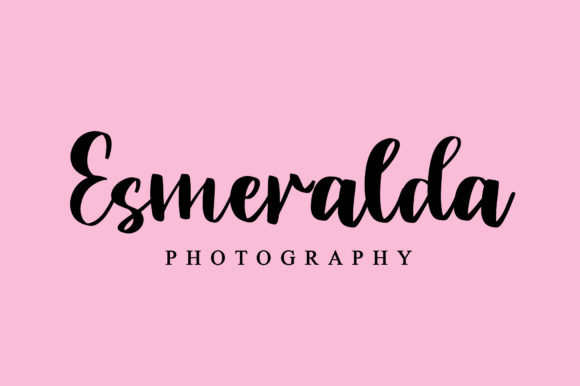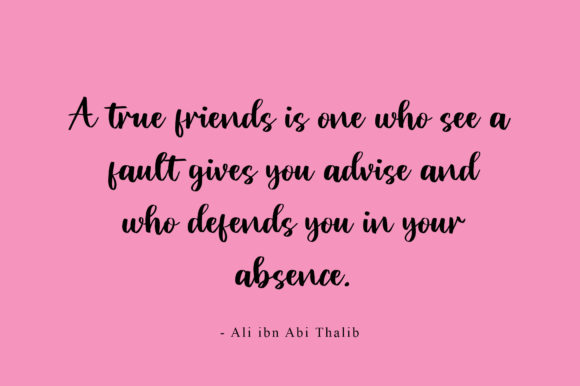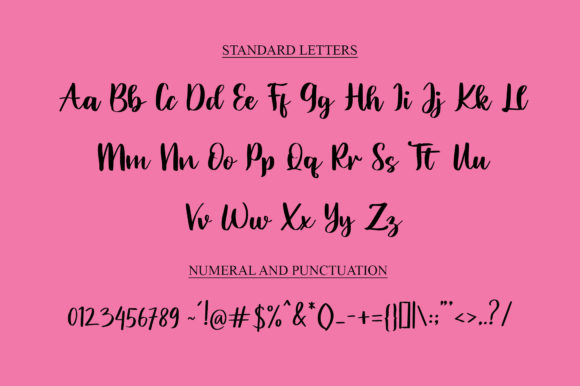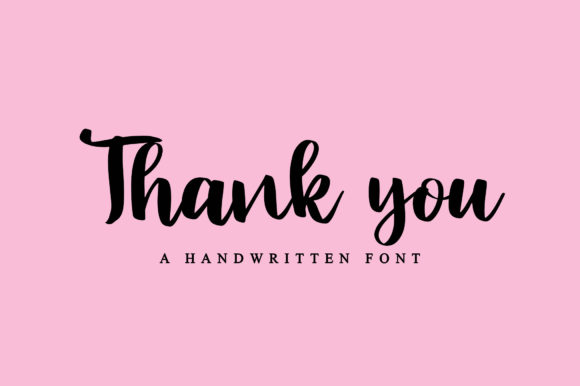
Cotton Candy Font: The Sweetest Addition to Your Design Collection
Are you looking for a font that can add a touch of whimsy and playfulness to your designs? Look no further than the Cotton Candy font! This lovely script font features charming, playful characters that seem to dance along the baseline, making it perfect for a variety of creative projects.
The Charm of Cotton Candy Font
Cotton Candy is a script font that is sure to capture the hearts of designers and crafters alike. Its unique and charming characters are designed to evoke the feeling of a sweet, fluffy cloud of cotton candy on a summer day. The font’s playful and carefree vibe makes it an excellent choice for projects that require a touch of fun and personality.
Key Features of Cotton Candy Font
• Charming and Playful Characters: The Cotton Candy font features unique and charming characters that seem to dance along the baseline, adding a touch of whimsy to your designs.
• Script Font Style: The font has a beautiful script style that is perfect for adding a touch of elegance and sophistication to your projects.
• Easy to Read: Despite its playful nature, the Cotton Candy font is easy to read, making it suitable for use in a variety of applications, from titles and headings to body text.
Uses of Cotton Candy Font
The Cotton Candy font is versatile and can be used in a variety of creative projects, including:
• Graphic Design: Use the Cotton Candy font to add a touch of whimsy to your graphic designs, such as brochures, flyers, and posters.
• Crafting: The font is perfect for crafters who want to add a personal touch to their projects, such as handmade cards, scrapbooking, and DIY crafts.
• Digital Design: Use the Cotton Candy font in your digital designs, such as social media graphics, blog posts, and website headers.
Tips for Using Cotton Candy Font
Here are some tips for using the Cotton Candy font in your designs:
• Use it as a Title Font: The Cotton Candy font is perfect for use as a title font, adding a touch of whimsy and personality to your headings and titles.
• Pair it with Other Fonts: Experiment with pairing the Cotton Candy font with other fonts to create a unique and interesting contrast.
• Use it in Color: The Cotton Candy font looks great in color, so don’t be afraid to experiment with different colors and gradients.
In conclusion, the Cotton Candy font is a lovely script font that is sure to add a touch of whimsy and playfulness to your designs. Its charming and playful characters make it perfect for a variety of creative projects, from graphic design and crafting to digital design. With its ease of use and versatility, the Cotton Candy font is a great addition to any design collection.